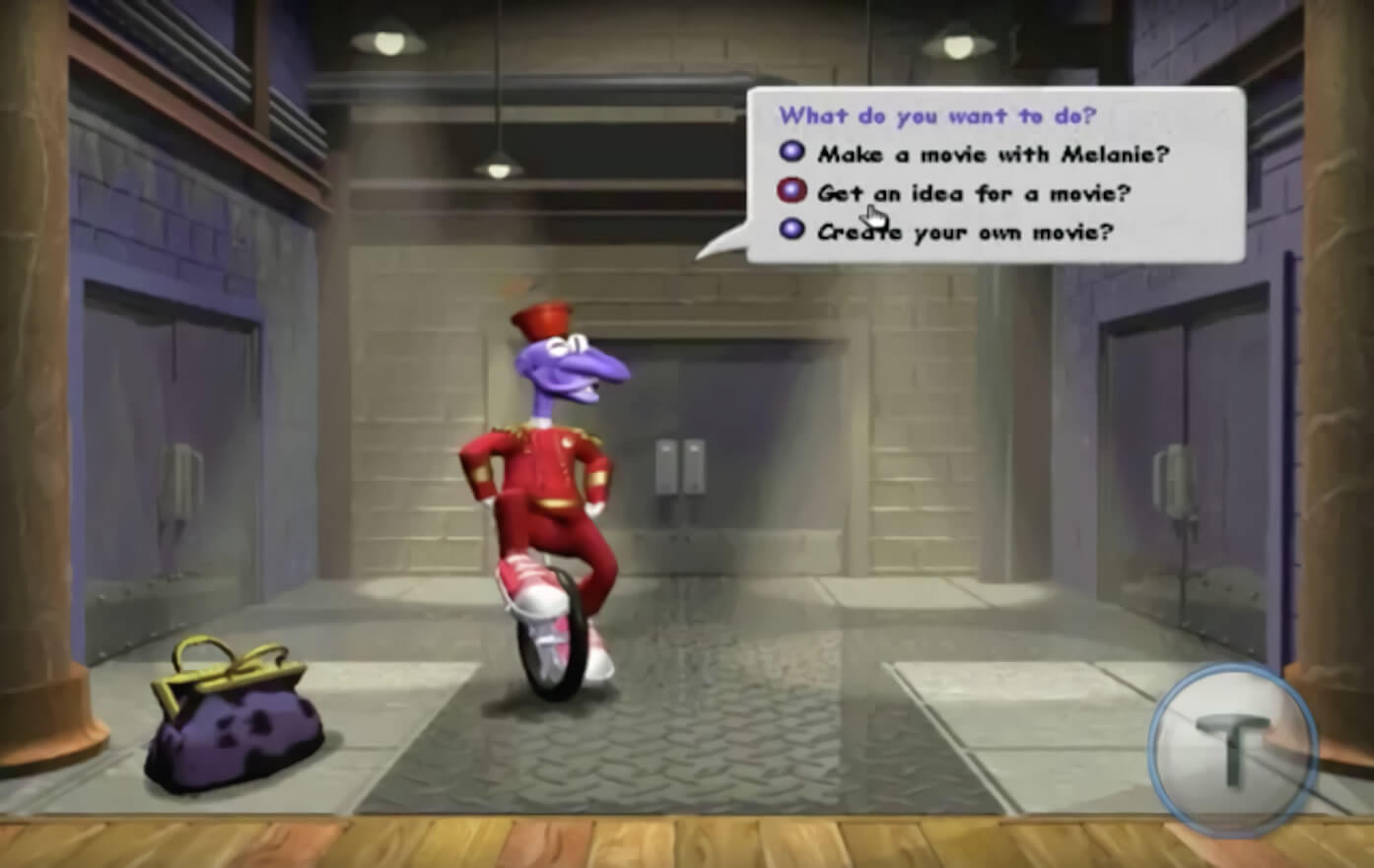
Inspired by The Dark Knight Returns and Watchmen comics, designer Vincent Connare began creating Comic Sans in October 1994 as an informal font for Microsoft Bob, a user interface released for Windows in March 1995 that used objects inside a cartoon house to represent programs (for instance, clicking a paper and pencil on the desk would open a word processor). However, the font wasn't finished in time to be included in Microsoft Bob, which was received poorly and discontinued the following year.
Instead, Comic Sans first appeared in the speech balloons and other dialog boxes of Microsoft 3D Movie Maker, a game that was marketed as a way for kids to make 3D cartoon movies. The font also shipped the same year in the $50 Microsoft Plus! add-on pack for Windows 95 and the following year in Microsoft Comic Chat, a graphical IRC client released with IE 3.0 in 1996.